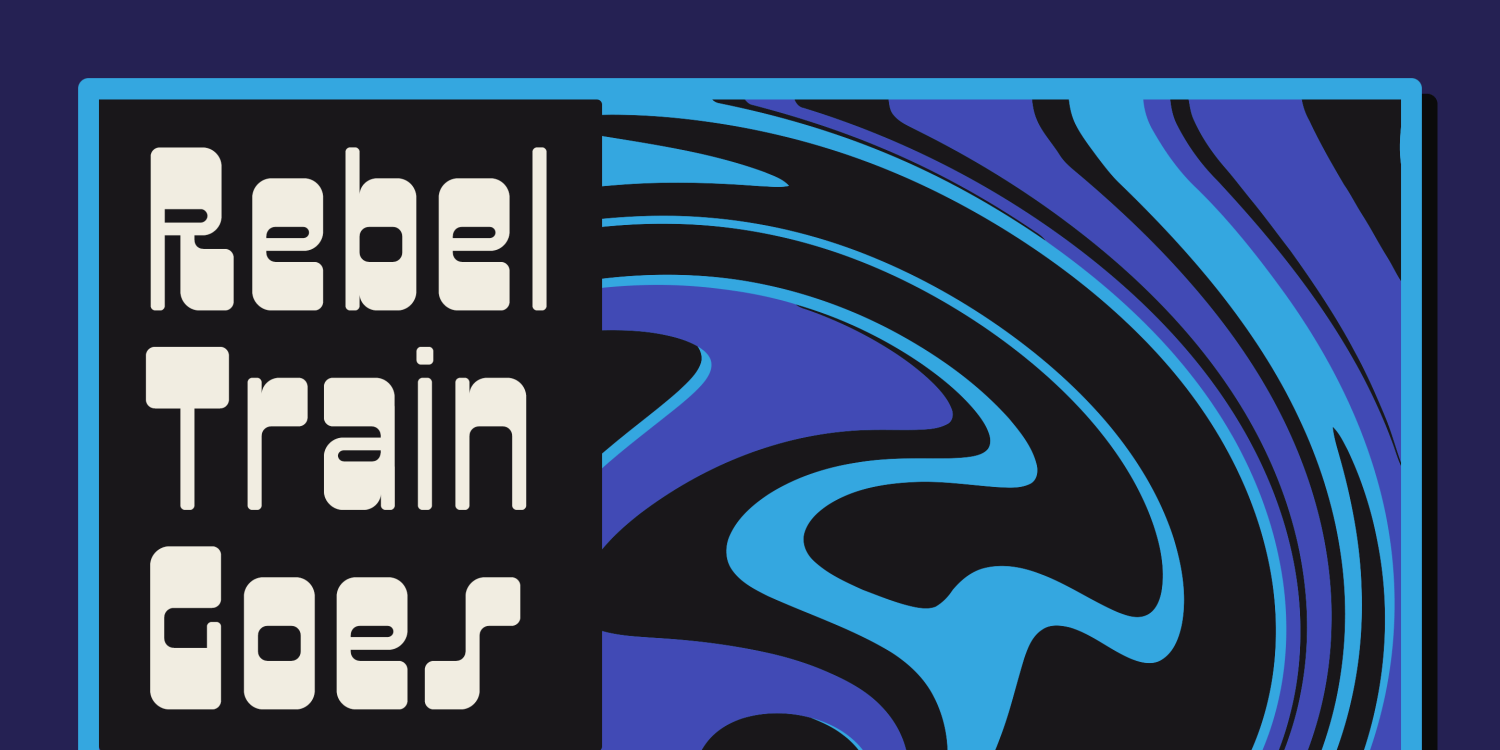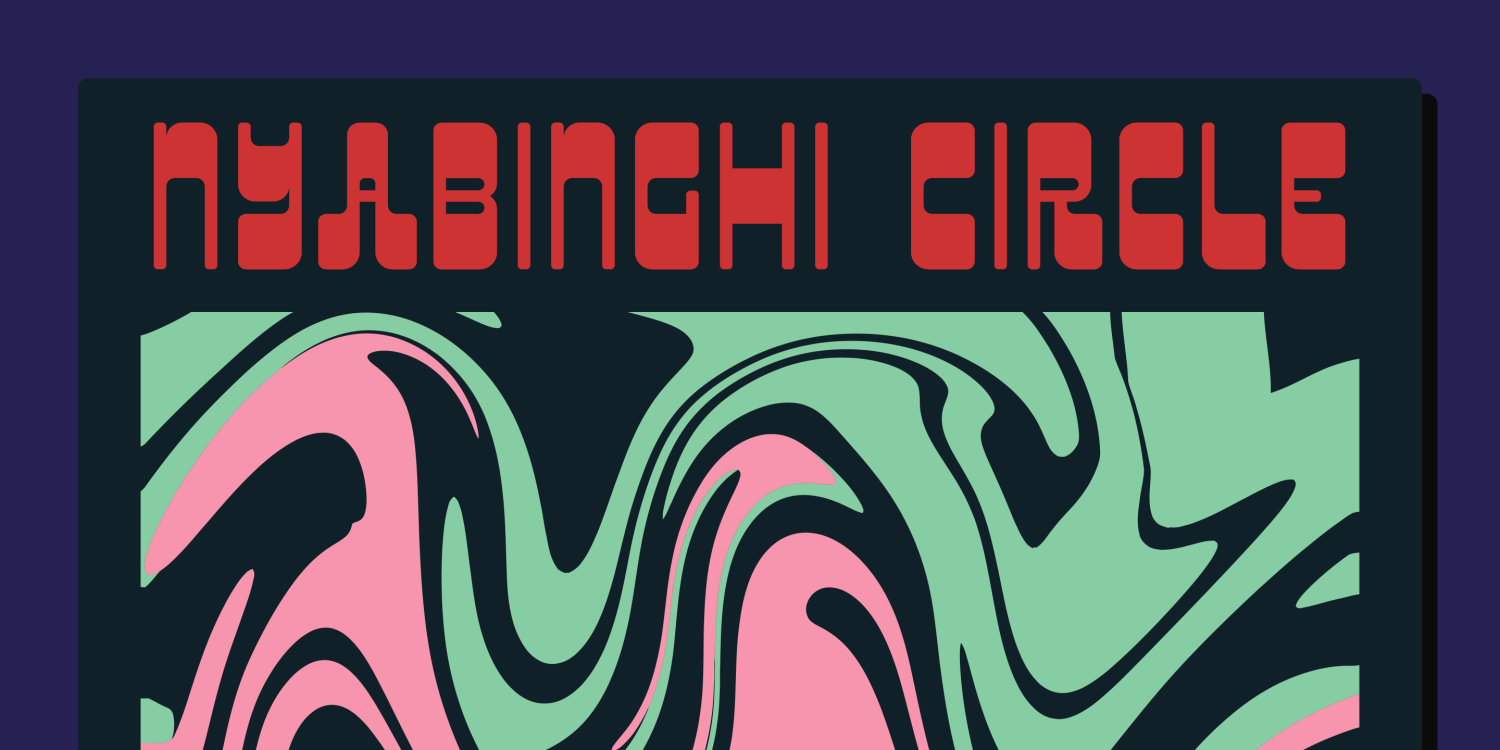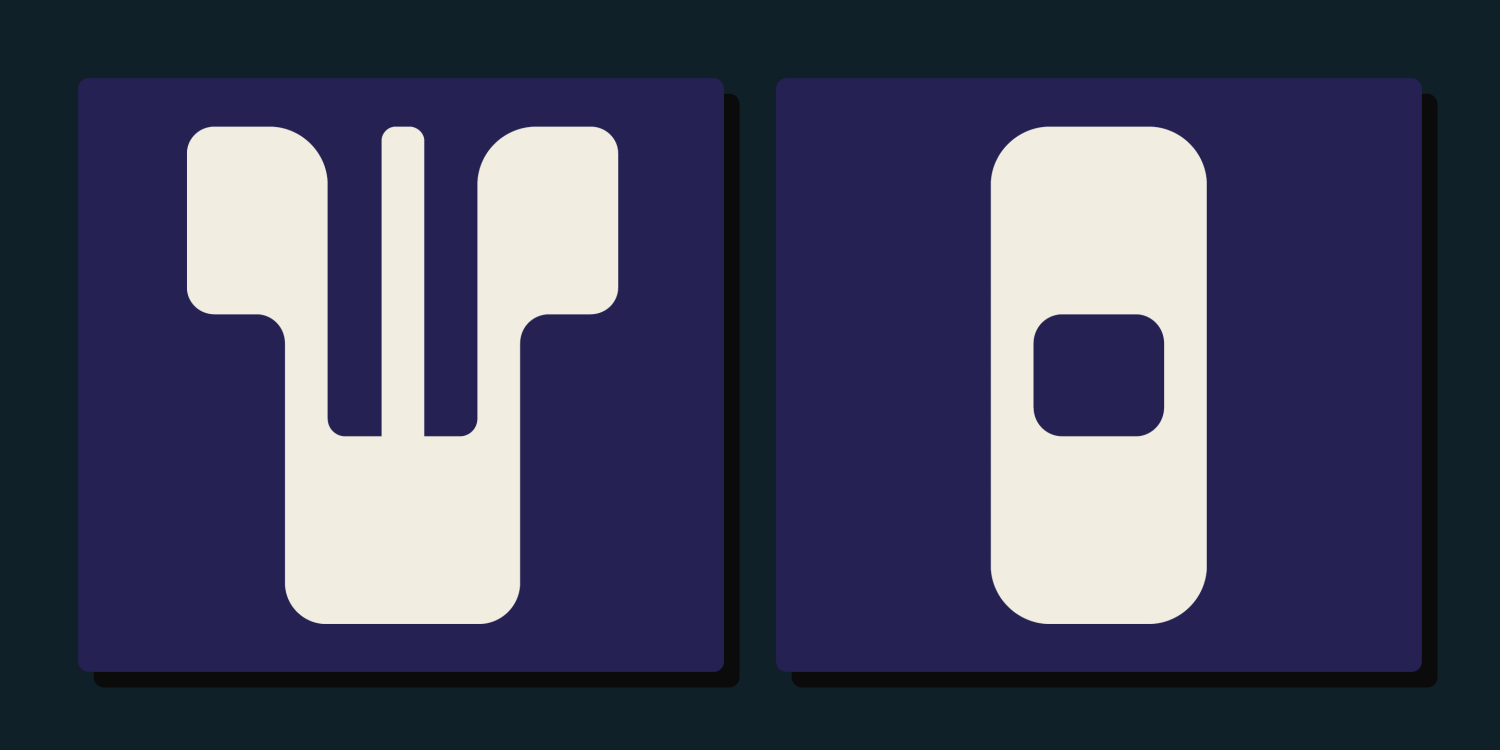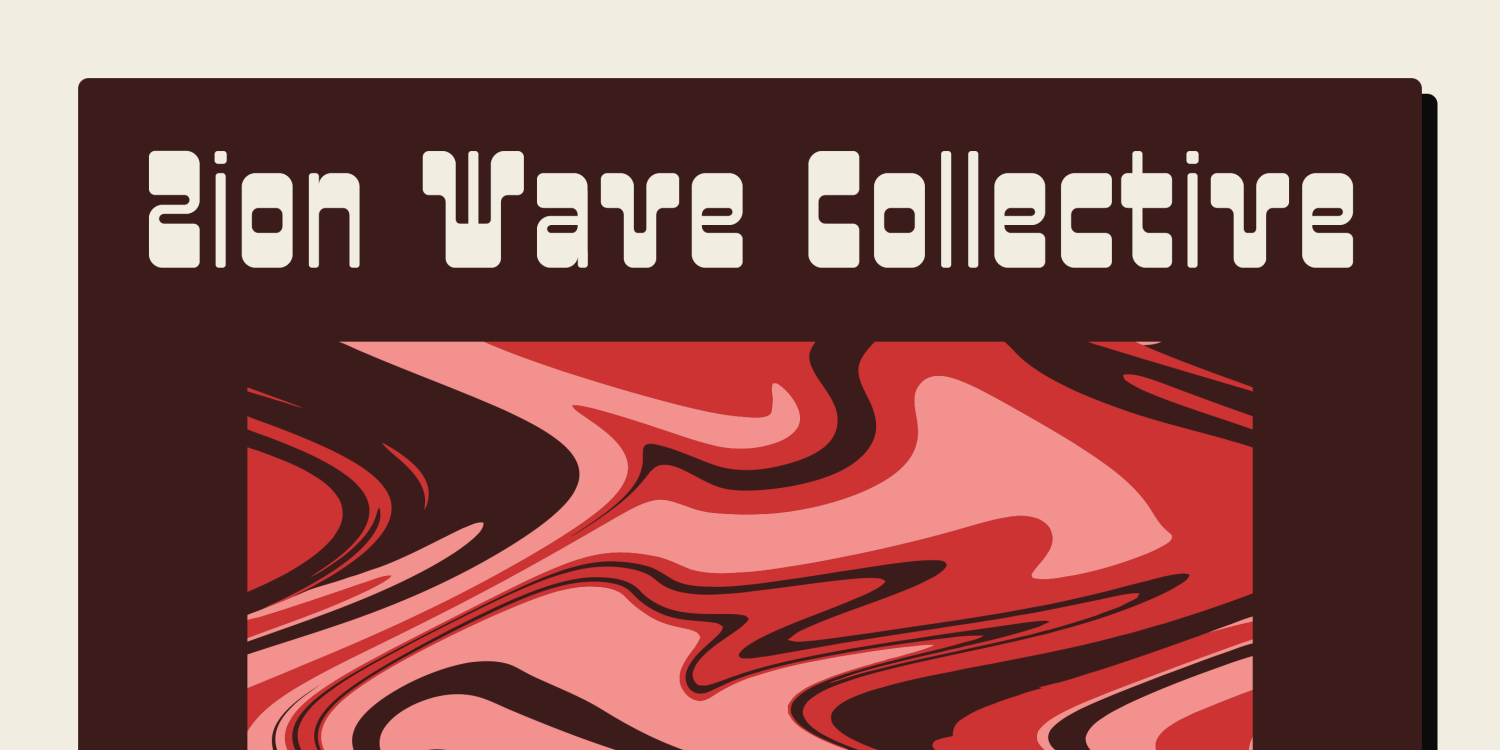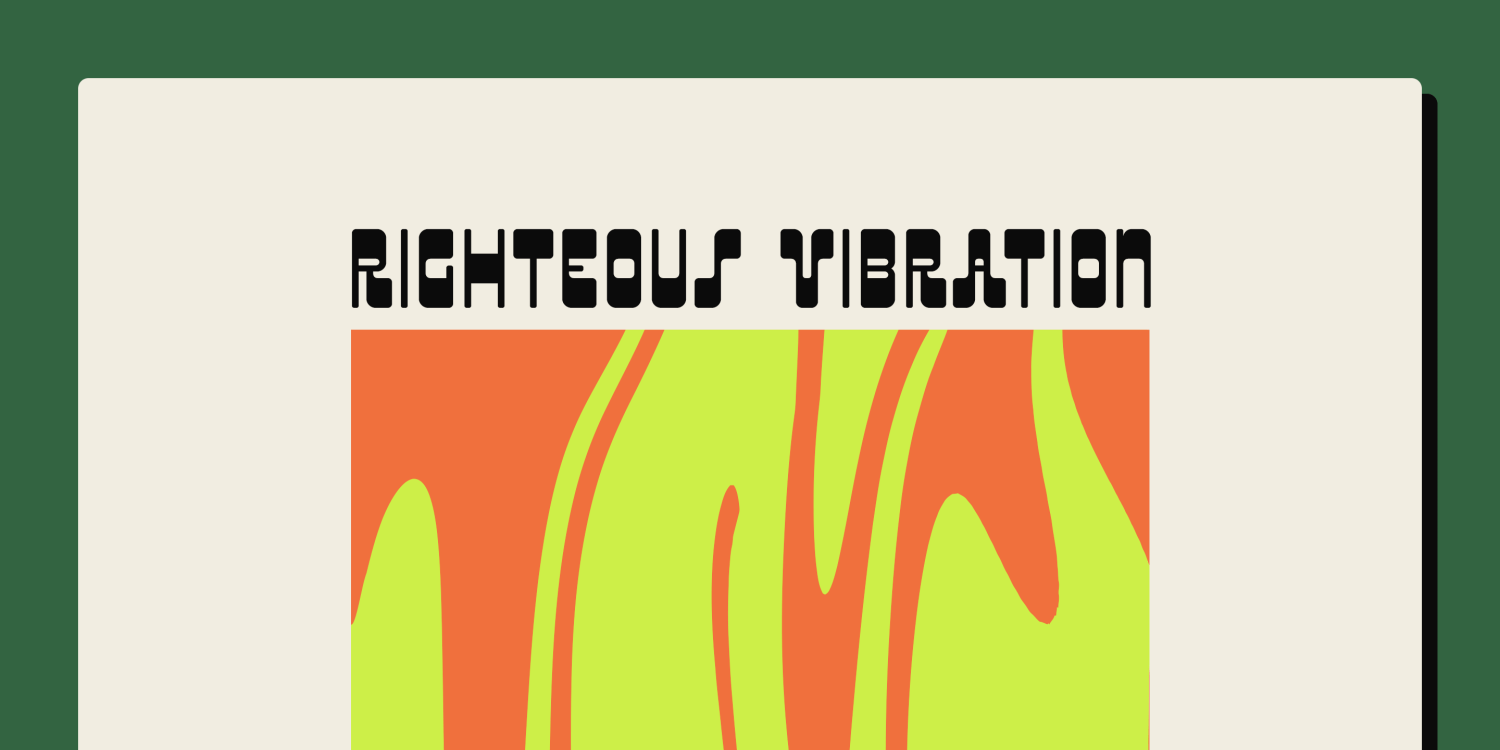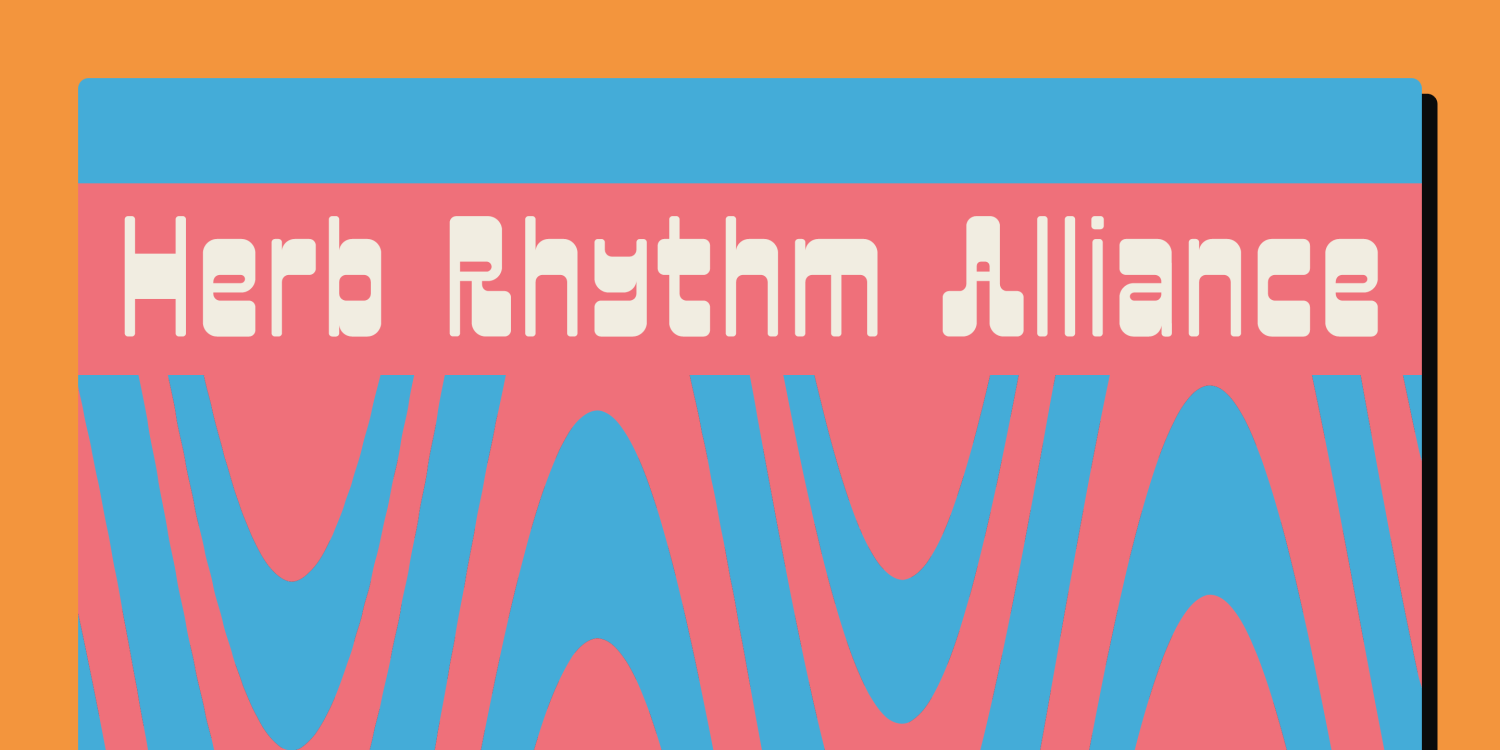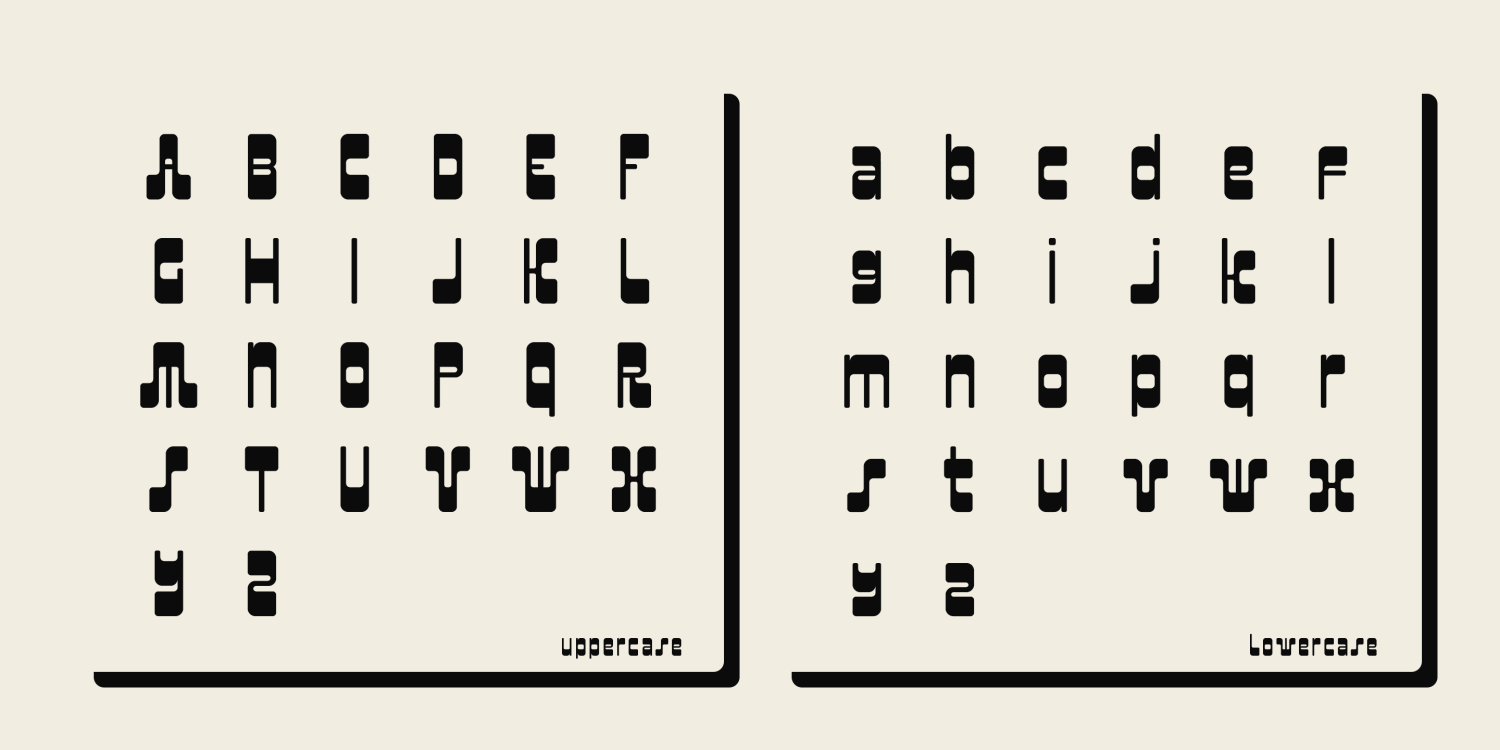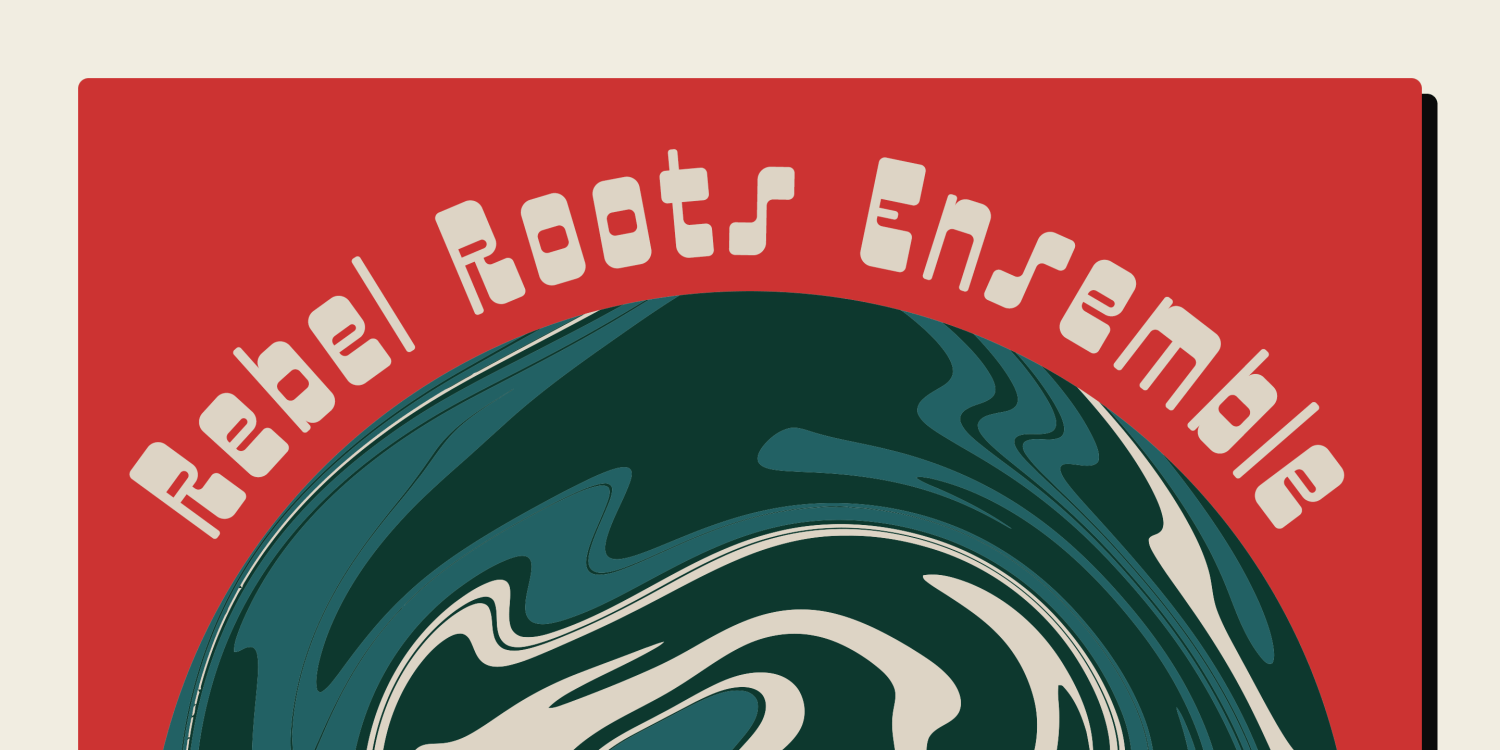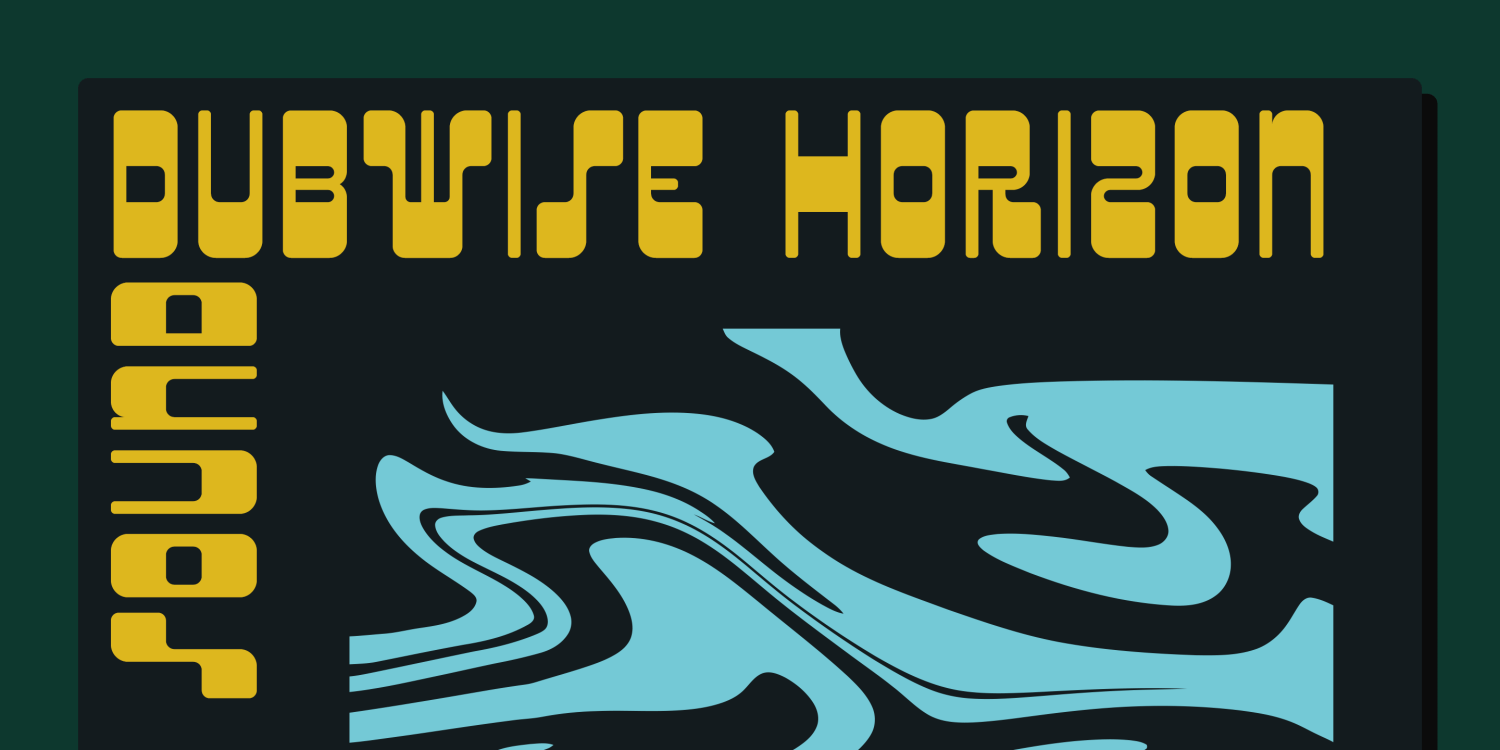
Rebel Train Goes
Font Family by Dharma Type
Inspired by retro vinyl records from the mid-20th century, this font is a vibrant mix of funky flair, hippie vibes, and mid-century futuristic aesthetics.
It brings a bold, nostalgic energy—perfect for designs that celebrate vintage cool with a modern twist.